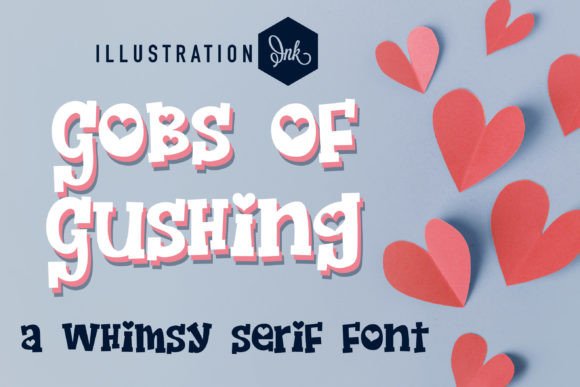
In a world adorned with monotonous fonts, behold Gobs of Gushing Font – an amorous display font that pulsates with love and affection! This hand-crafted serif creation, brought to life by the imaginative minds at Illustration Ink, is a delightful typeface that will surely capture hearts.
Unlike ordinary fonts that blend into the background like shy, retiring wallflowers, Gobs of Gushing Font commands attention – a flamboyant diva radiating confidence and charm! Its blocky structure, balanced with a cascade of cute, dainty hearts, exudes a personality that is both whimsical and cheerful, perfect for spreading love and joy.
Imagine your words, enveloped in the loving embrace of Gobs of Gushing Font, taking flight like lovebirds soaring through the sky. Valentine's Day, with its aura of romance, is the ideal occasion to unleash the magic of this font. Let it grace your cards, posters, invitations, or social media posts, transforming them into captivating expressions of affection.
The versatility of Gobs of Gushing Font is simply enchanting. Its playful spirit lends itself effortlessly to a myriad of creative endeavors – from heartfelt love letters that ignite passions to whimsical illustrations that spread joy. Embrace the limitless possibilities and witness your designs blossom into captivating masterpieces that leave a lasting impression.
With Gobs of Gushing Font as your creative companion, you embark on a journey of artistic exploration, leaving a trail of love and delight in your wake. It's not just a font – it's an experience that ignites your imagination and sets your heart aflutter.
Dear wordsmiths, storytellers, and creative visionaries, Gobs of Gushing Font is your muse, your confidant, your partner in crime. It's time to let your creativity dance to the rhythm of this amorous font and create masterpieces that resonate with love and joy.